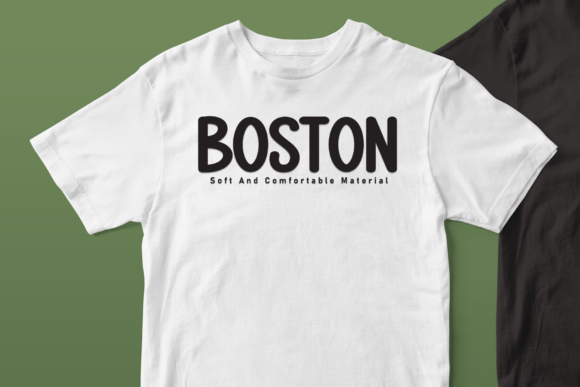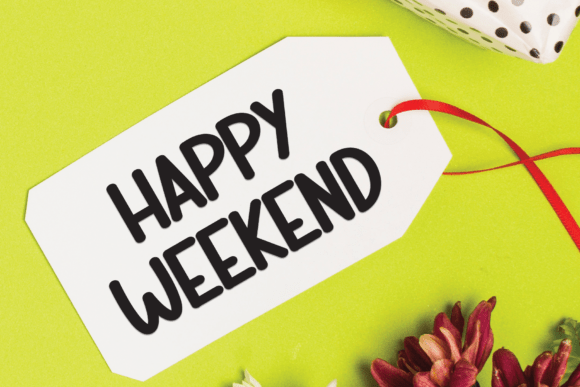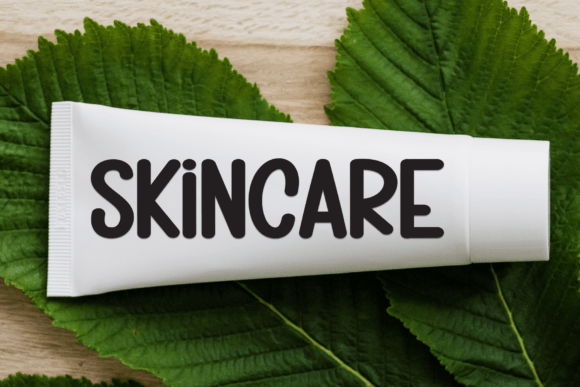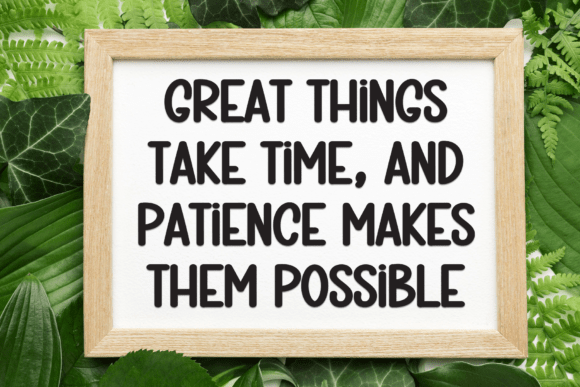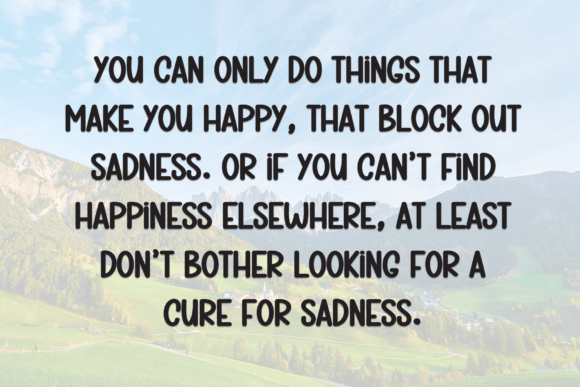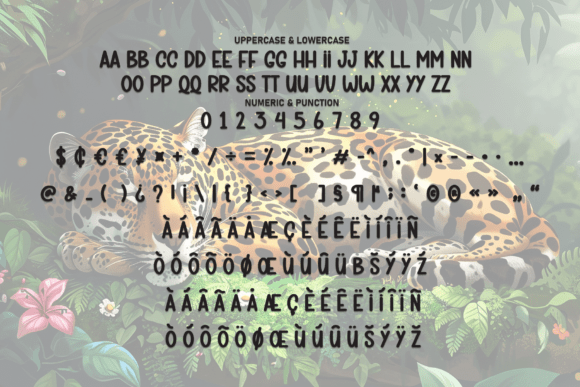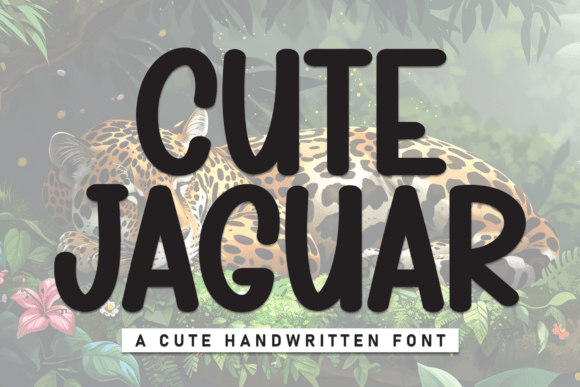
Unleash the Magic of Cute Jaguar Font: Elevate Your Designs with a Touch of Whimsy
Are you tired of using the same old fonts for your creative projects? Look no further! Our Cute Jaguar Font is here to revolutionize the way you approach design. This captivating handwritten display font is infused with an invigorating charm that adds a unique flair to any textual content. Whether you’re working on wedding invitations, greeting cards, or any other creative project, this font is sure to bring a dash of delight to your designs.
The Transformative Power of Cute Jaguar Font
Our Cute Jaguar Font has the power to transform any design into a luminous work of art. With its enchanting magnetism and blissful charm, this font overflows with personality and character. The intricate details and flowing curves of this handwritten font create a mesmerizing allure that’s sure to captivate your audience. Whether you’re a designer, crafter, or DIY enthusiast, this font is perfect for anyone looking to add a touch of whimsy to their projects.
The versatility of Cute Jaguar Font is one of its most appealing features. This font can be used for a wide range of creative projects, including:
- Art and craft projects
Wherever you choose to use Cute Jaguar Font, you can be sure that it will add a unique and exciting touch to your design.
What Sets Cute Jaguar Font Apart
So, what makes Cute Jaguar Font so special? Here are just a few features that set it apart from other fonts:
- Handwritten charm: Our font is carefully crafted to mimic the look and feel of handwritten text, giving it a warm and personal touch.
- Unique character: Cute Jaguar Font has a distinctive character that’s sure to make your designs stand out from the crowd.
- High-quality design: Our font is designed with precision and attention to detail, ensuring that it looks great in any context.
Tips for Using Cute Jaguar Font
To get the most out of Cute Jaguar Font, here are a few tips to keep in mind:
- Experiment with different colors: Our font looks great in a wide range of colors, so don’t be afraid to try out different options.
- Play with font sizes: Cute Jaguar Font can be used at a variety of font sizes, from large and bold to small and delicate.
- Combine with other fonts: Our font pairs well with a range of other fonts, so feel free to experiment with different combinations.
- Use it sparingly: While Cute Jaguar Font is sure to add a touch of magic to your designs, it’s best used sparingly to avoid overwhelming the senses.
In conclusion, Cute Jaguar Font is a game-changer for designers and crafters looking to add a touch of whimsy to their creative projects. With its captivating charm, enchanting magnetism, and endless creative possibilities, this font is sure to transform your designs into luminous works of art. So why wait? Venture into the mesmerizing allure of Cute Jaguar Font today and experience the charming complexity and deep gratification of utilizing our eye-catching and personable handwritten display font.
Whether you’re working on a wedding invitation, greeting card, or any other creative project, Cute Jaguar Font is the perfect choice. So go ahead, unleash your creativity, and see the magic that happens when you combine our font with your imagination.